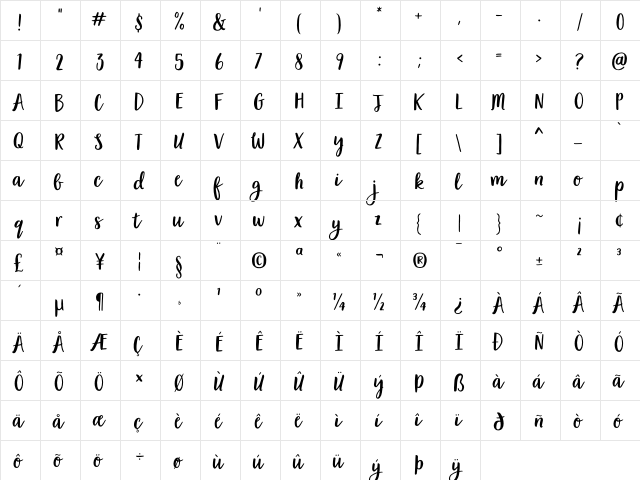
Garden Grown US D Font Preview
Garden Grown US D
Garden Grown US D Font Details
| Style | D |
| Foundry | Cultivated Mind |
| Designer | Cindy Kinash |
Design Context for Garden Grown US Typeface
Garden Grown US is a composed and adaptable typeface that performs quietly and consistently across a wide range of design contexts.